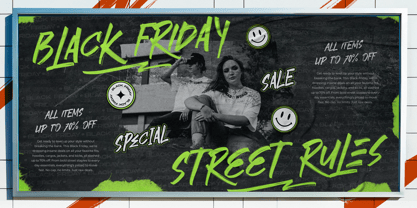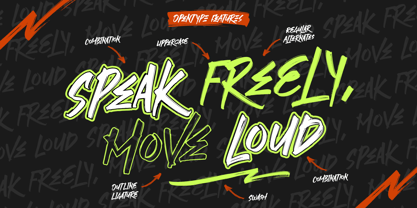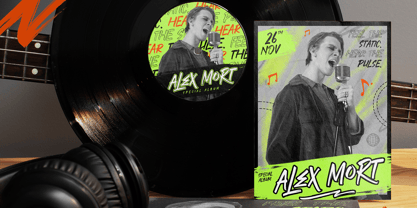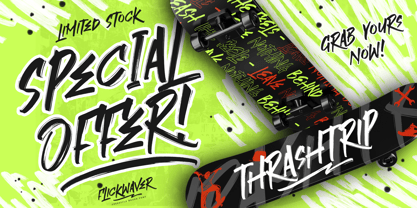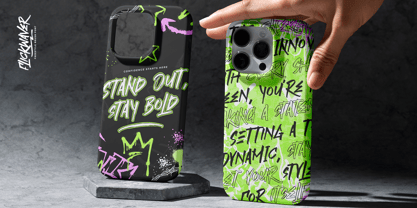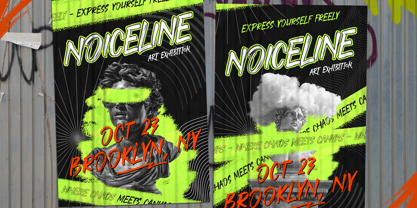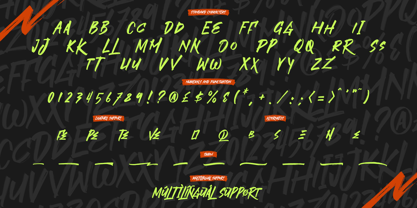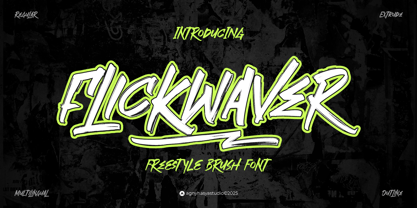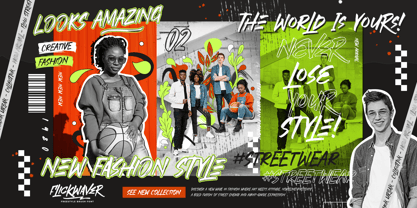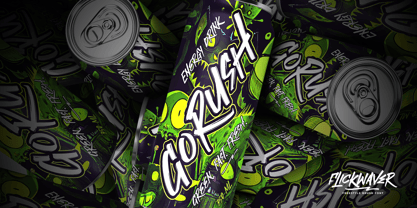
FlickWaver
The FlickWaver Font Family was designed by Firman Maulana and published by Agny Hasya Studio. FlickWaver contains 3 styles and family package options.
FlickWaver is a bold and expressive brush font inspired by the vibrant expression from the raw energy of street art and the effortless flow of hand-drawn marker lines.
With a lively personality and modern flair, it’s designed to bring a punch of character to your work, whether you're aiming for edgy,
urban vibes or something a bit more playful.
This font comes in three versatile styles: Regular, Outline, and Extrude, giving you creative freedom to mix, layer, and experiment.
Each stroke feels dynamic and handcrafted, making it a great fit for logos, apparel, branding, social posts, posters, and other creative visuals.
FlickWaver supports multilingual characters, making it ready to go global and reach a larger audience.
Whatever your style, FlickWaver adds just the right amount of bold attitude and creative flow.